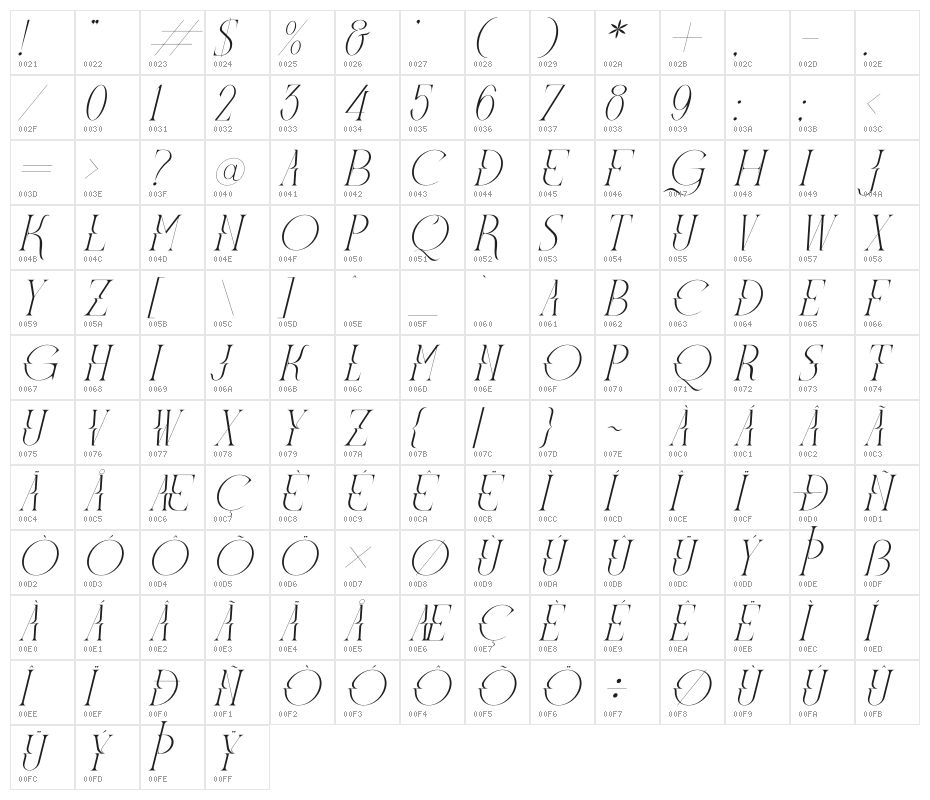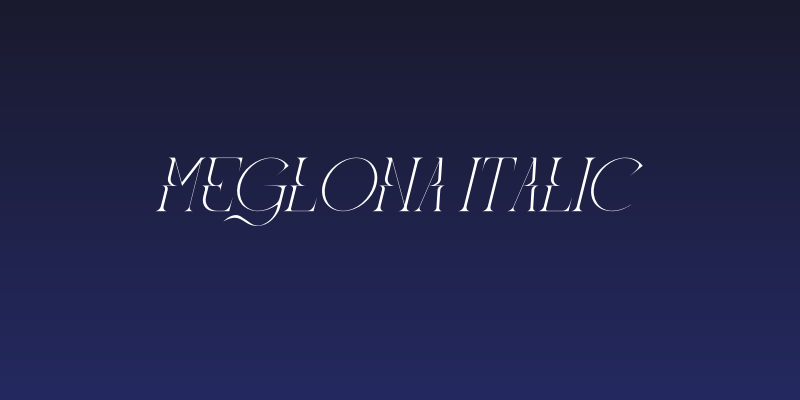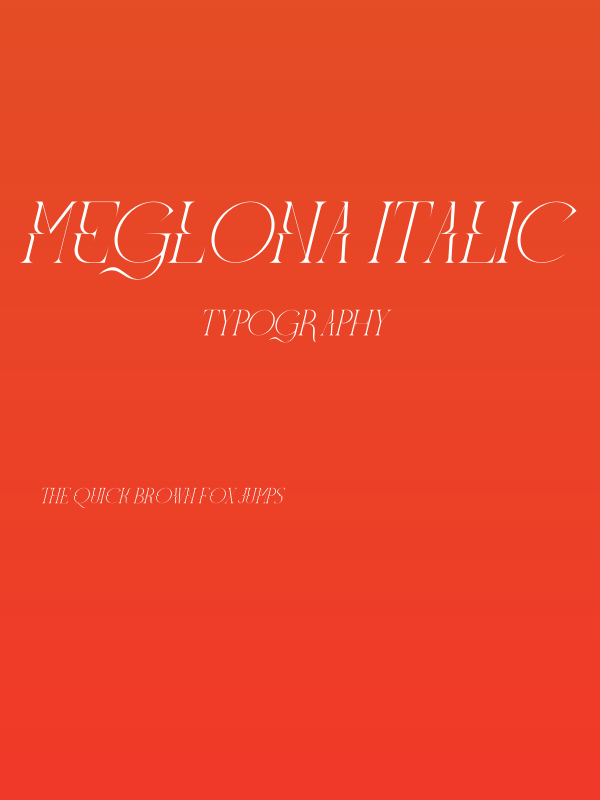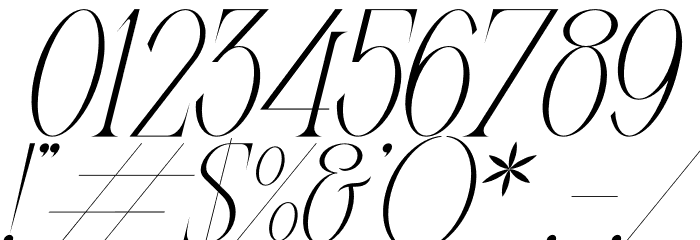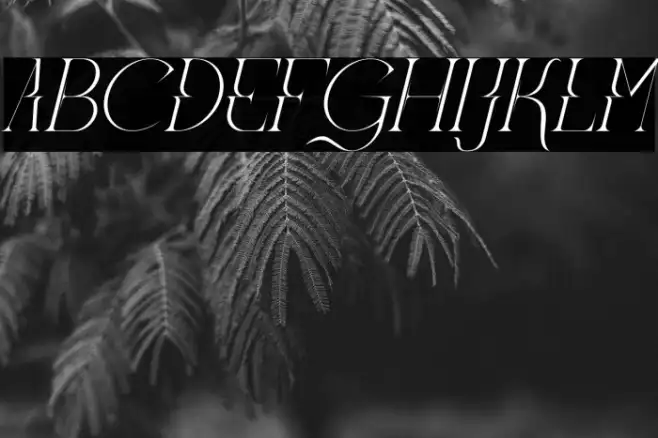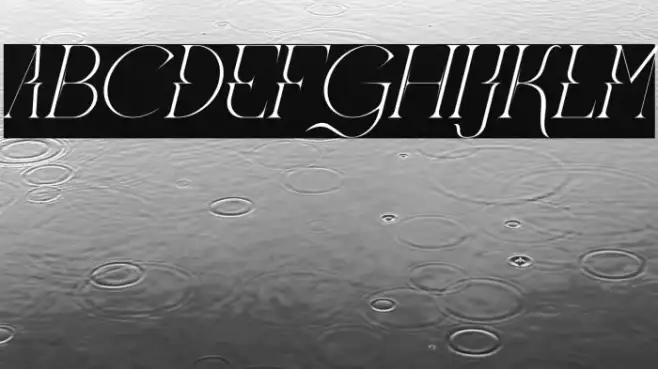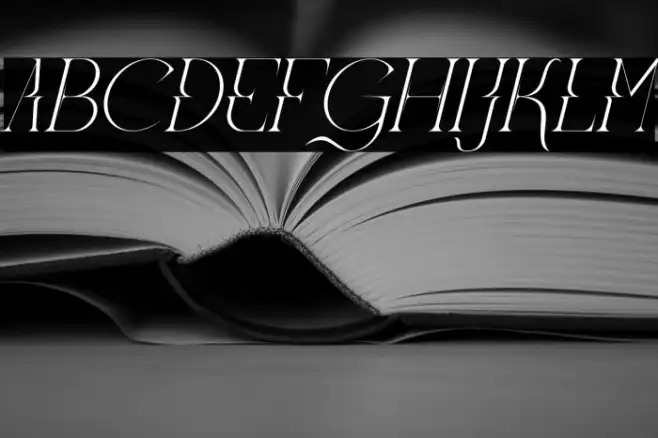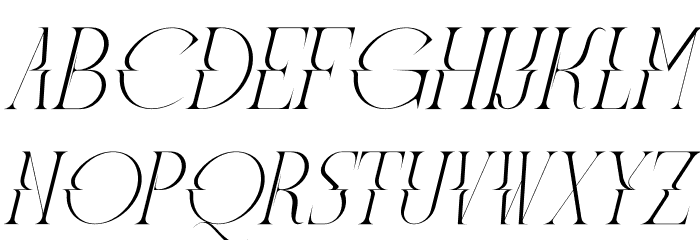
Meglona Italic Font
Meglona Italic Description
This font exhibits a sophisticated and elegant style with a distinct italic slant, giving it a sense of motion and fluidity. The characters are elongated and feature high contrast between thick and thin strokes, which adds to its refined appearance. The uppercase letters are particularly striking, with sharp serifs and a graceful flow. The lowercase letters maintain the same elegance, with a consistent slant and delicate curves. The numerals are designed to match the overall style, with a similar contrast and slant. Special characters are included, maintaining the font's cohesive aesthetic. This font is ideal for projects that require a touch of elegance and sophistication.
| Overall Style | Elegant |
| Use Case | Headlines, Logos, Invitations |
| Proposed Projects | Ideal for wedding invitations, luxury branding, editorial design, and elegant packaging. |